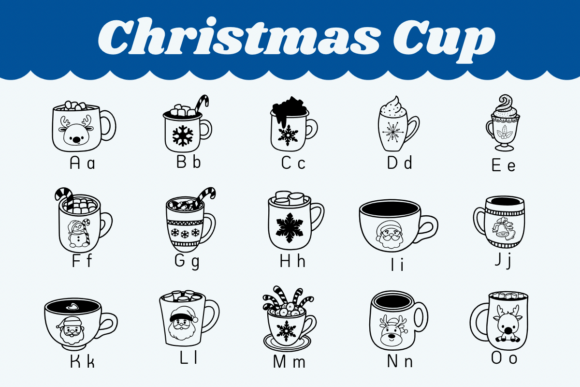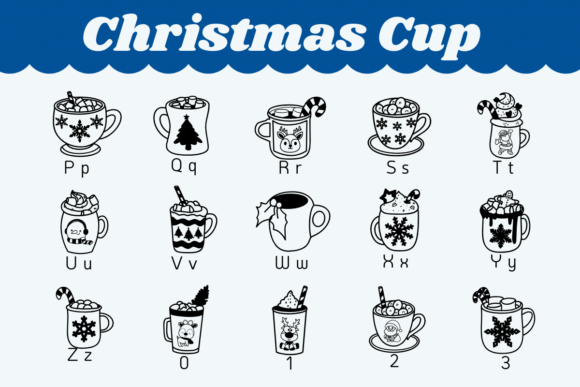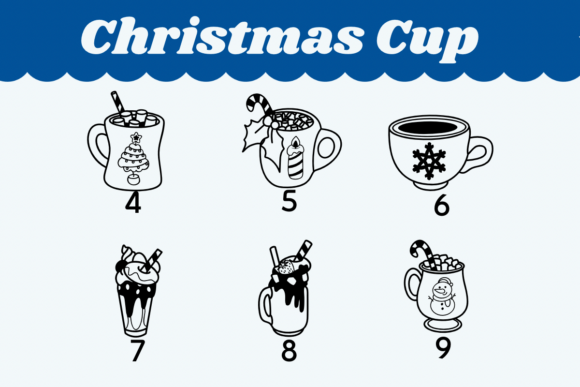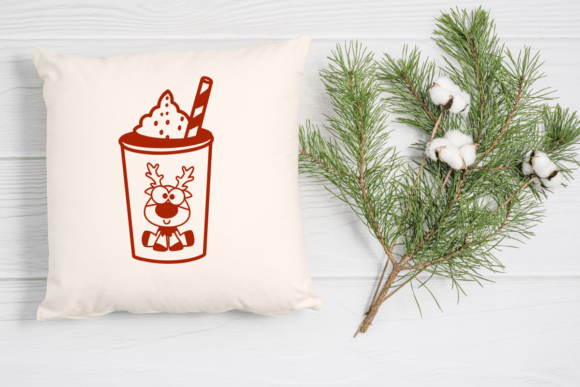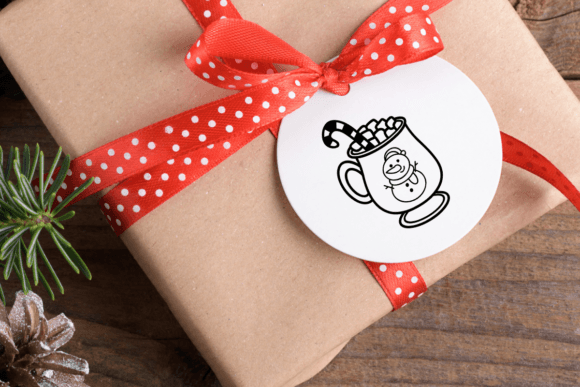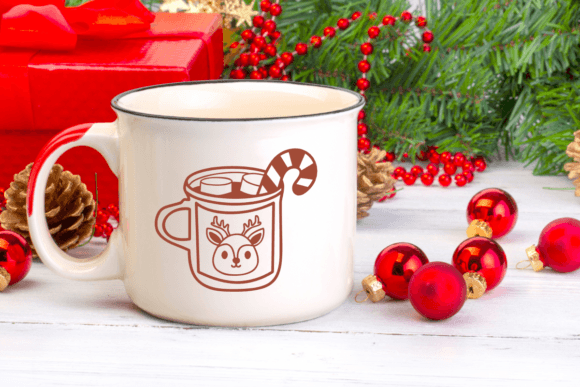
Christmas Cup Font: Add a Festive Touch to Your Designs
Are you looking for a fun and festive way to add some holiday cheer to your designs? Look no further than the Christmas Cup Font! This delightful dingbat font features cute holiday cups filled with hot chocolate and marshmallows, perfect for adding a touch of whimsy and fun to your projects.
What is the Christmas Cup Font?
The Christmas Cup Font is a unique dingbat font that features adorable illustrations of holiday cups filled with hot chocolate and marshmallows. Each character in the font is carefully designed to bring a smile to your face, making it perfect for adding a festive touch to your designs. Whether you’re a designer, crafter, or simply someone who loves the holiday season, this font is sure to delight.
Features of the Christmas Cup Font
- Cute and festive designs: Each character in the font features a delightful holiday cup filled with hot chocolate and marshmallows.
- Perfect for holiday designs: Add a festive touch to your designs, from Christmas cards to holiday-themed crafts.
- Scalable: The font is scalable to any size, making it perfect for use in a variety of projects.
- Christmas cards: Add a festive touch to your holiday cards with the Christmas Cup Font.
- Holiday crafts: Use the font to add a personal touch to your holiday crafts, from scrapbooking to papercrafting.
- Social media graphics: Add a festive touch to your social media graphics, from Facebook posts to Instagram stories.
- Website designs: Use the font to add a holiday touch to your website designs, from Christmas-themed headers to festive footers.
Benefits of Using the Christmas Cup Font
There are many benefits to using the Christmas Cup Font in your designs. Here are a few:
- Adds a festive touch: The font adds a fun and festive touch to your designs, perfect for the holiday season.
- Unique and eye-catching: The font is unique and eye-catching, making it perfect for designs that need to stand out.
- Easy to use: The font is easy to use and scalable to any size, making it perfect for a variety of projects.
- Perfect for holiday-themed designs: The font is perfect for holiday-themed designs, from Christmas cards to holiday crafts.
- Experiment with different colors: Experiment with different colors and combinations to find the perfect look for your design.
- Use it with other holiday fonts: Use the Christmas Cup Font with other holiday fonts to create a unique and festive look.